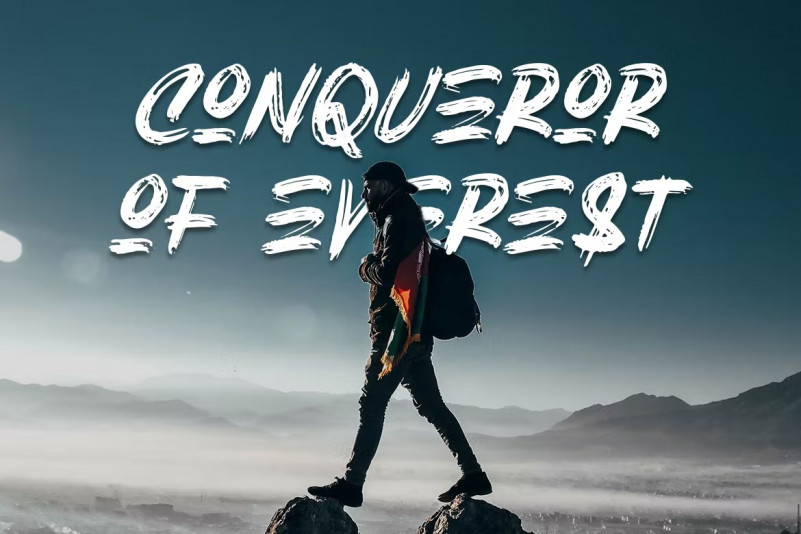
Boa Morte Font
Are you looking for a masculine brush font? We can help! Try downloading our Boa Morte font. The font is suitable for casual use. Try to use it on wedding invitation, photography, event, branding and signature to see the best of it 🙂